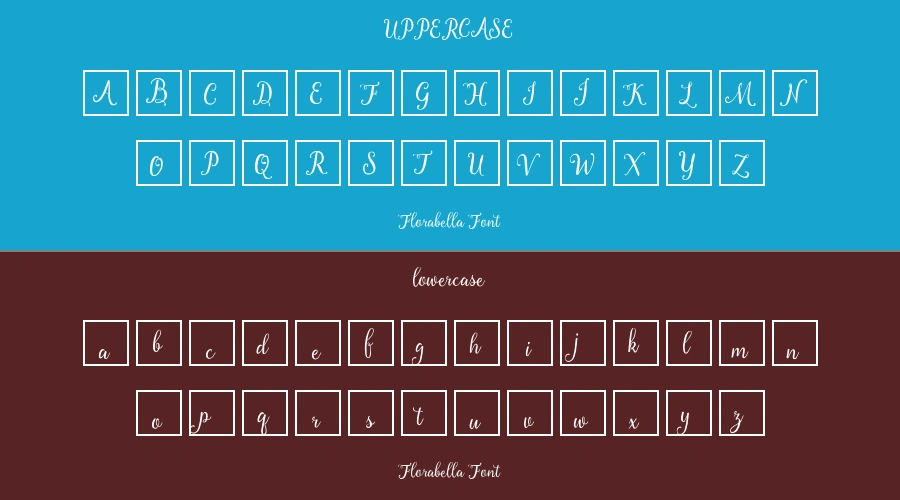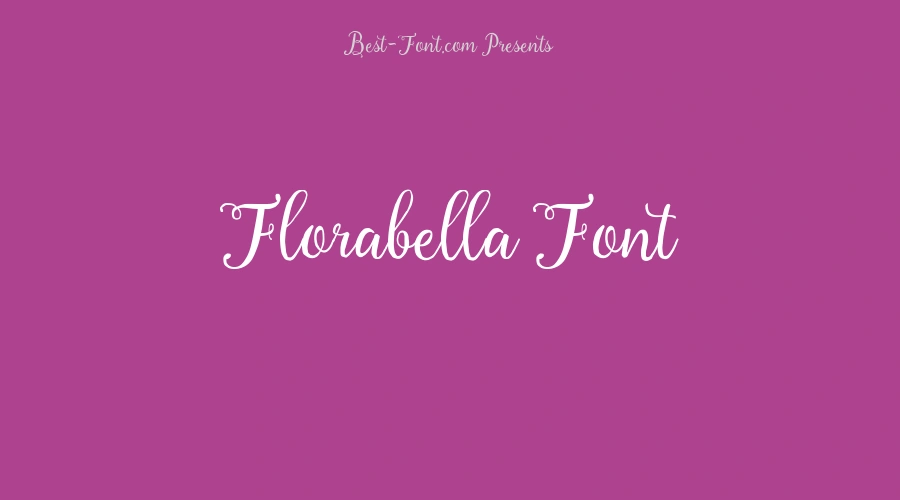
About Florabella Font
Designed with precision, Florabella Font merges balanced weights with craftsmanship in every character. This versatility makes it particularly effective for packaging hero, where consistency and industry recognition directly impact communication quality. Each letterform demonstrates meticulous craftsmanship.
Technical excellence shines through elements like architectural precision and technical characters, enhancing typographic versatility. In certification marks settings, Florabella Font proves its worth through superior table alignment. The thoughtful execution of ascender height and technical tradition ensures professional results.